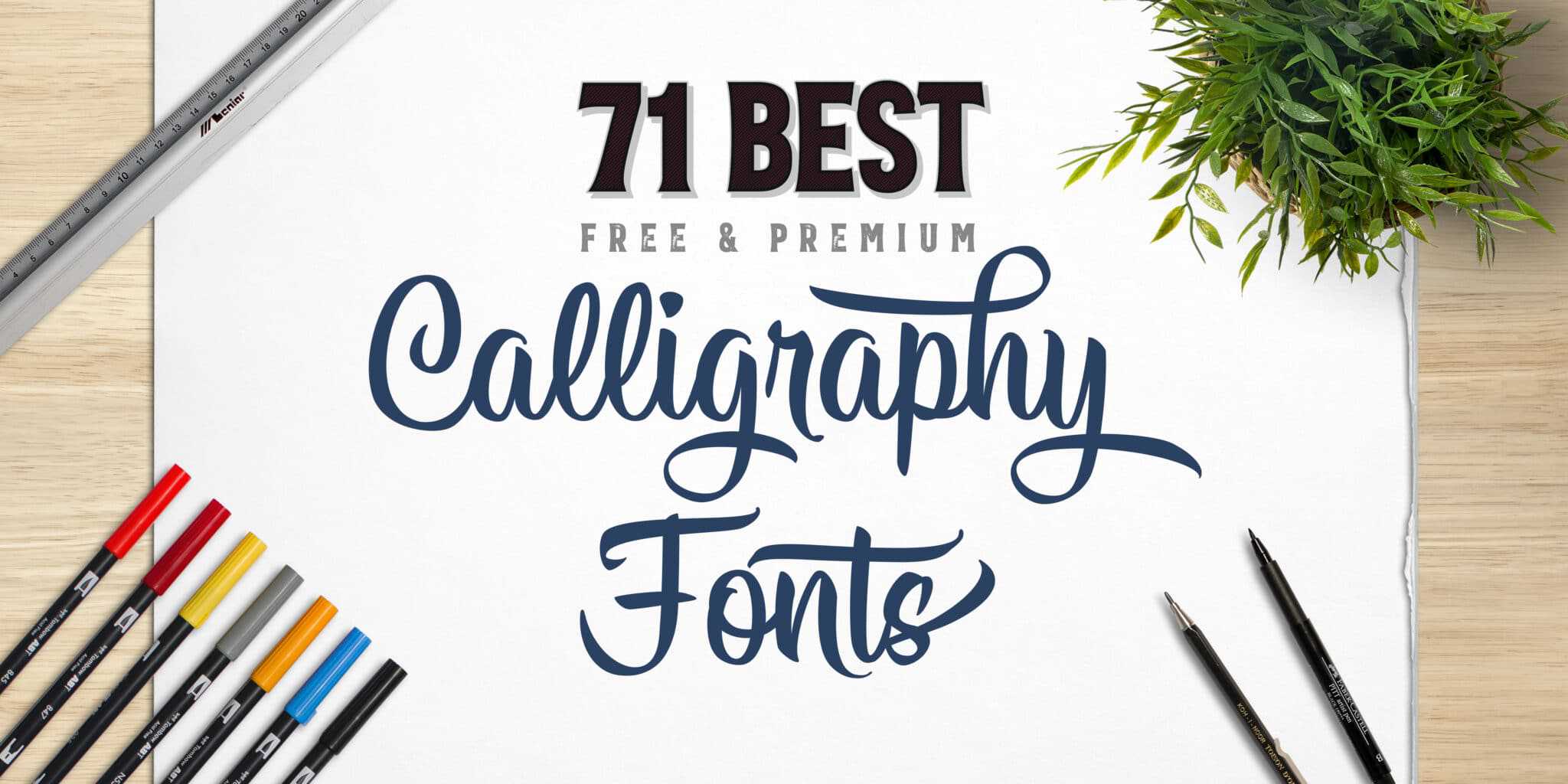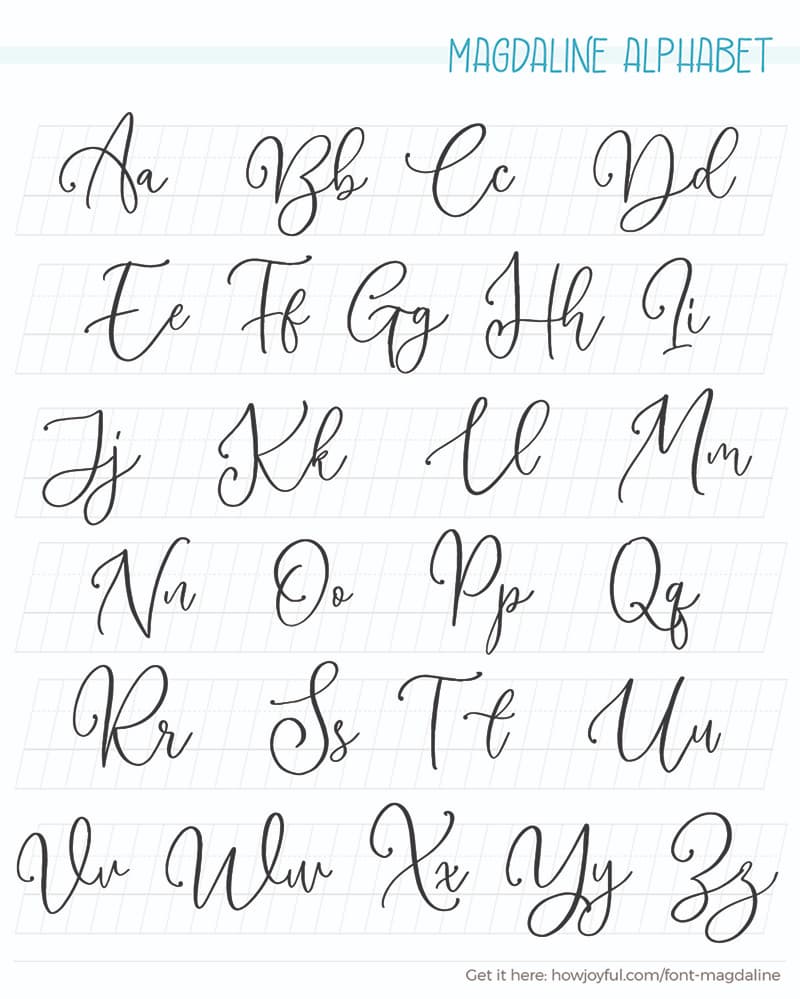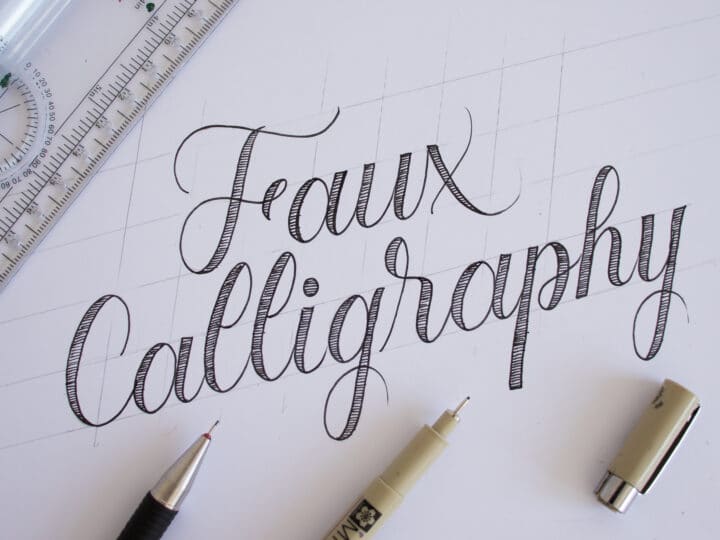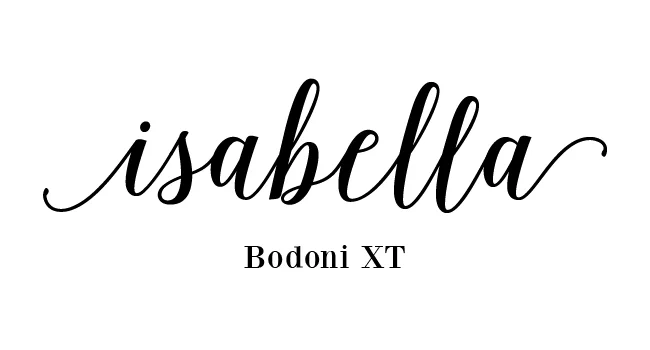
The writing is readable but is usually extravagant and embellished with flourishes.
Easy simple calligraphy fonts. This stunning handwritten font is a stylish homage to classic calligraphy. Easy calligraphy fonts for beginners worksheets. Both free calligraphy fonts and premium ones as well as a helpful FAQ section.
Calligraphy is an ancient writing technique using flat edged pens to create artistic lettering using thick and the height of calligraphy was reached in the. Burgues Script created by Alejandro Paul is a typical font family of calligraphy style. Downloading free fonts is as easy as clicking on the download button.
Calligraphy is an ancient writing technique using flat edged pens to create artistic lettering using thick and thin lines depending on the direction of the stroke. It will elevate a wide range of design projects to the highest level be it branding headings wedding designs invitations signatures logos labels and much more. La Sonnambula ffp by deFharo Category.
Lamar pen is a stunning calligraphy font designed by Mirabeau Buonaparte Lamar is a fascinating style with words combining in an elegant and stylish way. The height of calligraphy was reached in the middle age where monks developed the narrow writing style called gothic allowing more words to fit on a single line as paper was expensive at the time. Download Alphabet Calligraphy Fonts Easy This beautiful handwritten script font features both uppercase and lowercase letters with numbers and punctuations.
Simple feels equally charming and elegant. And pair it with a simple sans-serif body font for posters and other publications. Calligraphy is an artistic writing style where the pressure is varied to create thick and thin lines all in a single stroke.